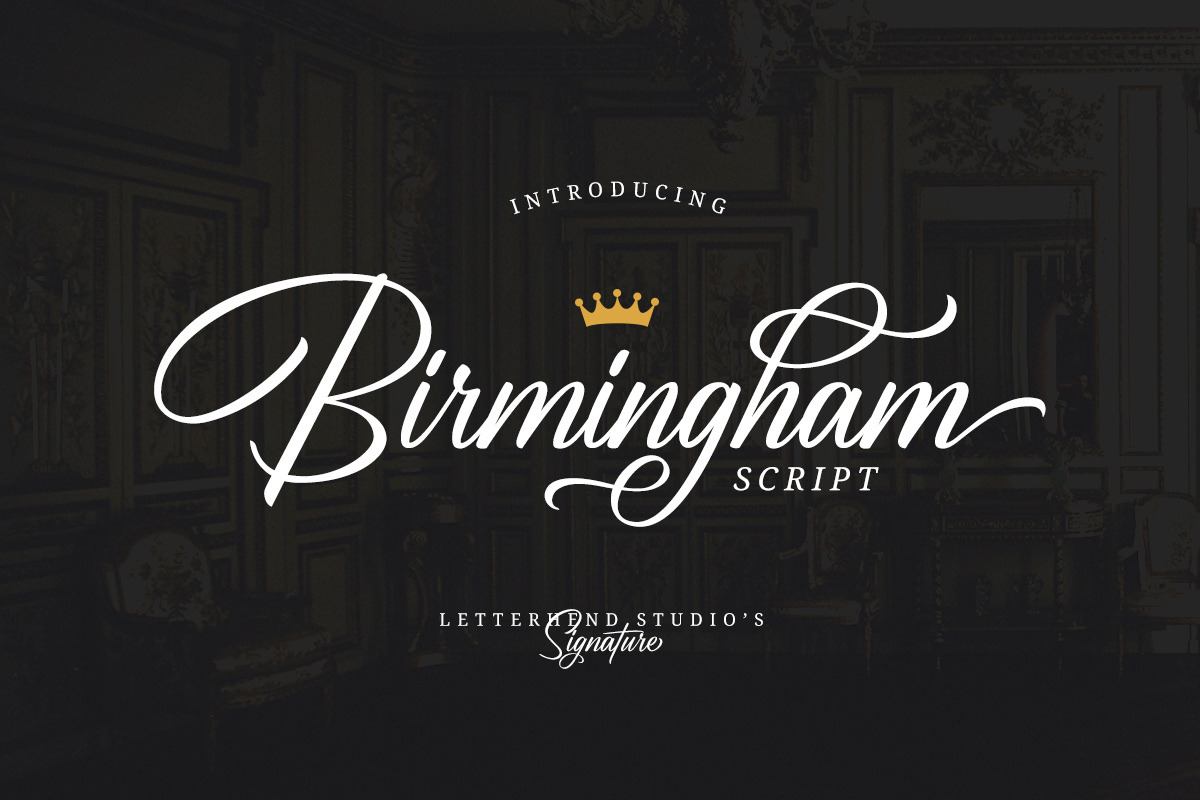
Birmingham - Signature Script Free Download
Birmingham – Signature Script Font Free Download is a sleek and classy handwritten typeface designed to mimic the elegance of a real signature. Ideal for personal branding, logos, wedding invitations, and high-end product packaging, it adds a luxurious and personal touch to your designs. Please note that you must purchase this font for commercial use, but it is available as a free download for testing purposes. Elevate your work with the refined style of Birmingham – Signature Script Font Free Download, and create timeless, sophisticated typography with every stroke.